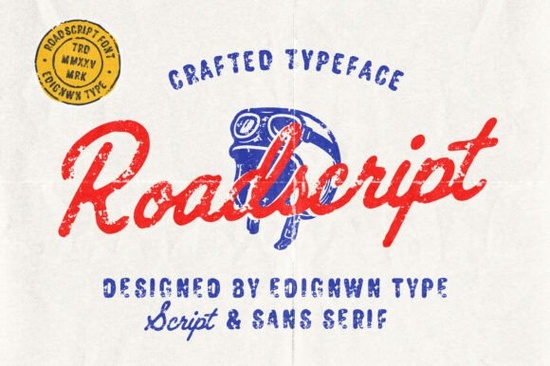
If you’re designing a logo for a classic car restoration shop, a vintage racing team, or a mechanic‑themed apparel line, you need lettering that feels authentic right out of the box. Roadscript Font gives you exactly that a retro automotive duo with Roadscript, a hand‑drawn connected script, and Roadscript Caps, a bold all‑caps display. Both typefaces are built to work together, so you can quickly put together badges, patches, posters, and brand systems that carry the warm, worn‑in grit of a 1950s garage.
What’s inside the Roadscript font family?
The product comes as a duo: Roadscript is the connected script. Its strokes are organic, with natural variations that mimic brush or marker lettering. There are no stiff, uniform curves here each character feels hand‑painted. Roadscript Caps is the companion. It’s a sturdy, all‑uppercase display face with subtle irregularities that keep it from looking cold. The caps are heavier, so they hold their own as a badge title or a secondary line under the script. Together, they give you the flexibility to build a full retro brand identity without hunting for a separate sans serif.
How do you pair Roadscript Script with Roadscript Caps in a logo?
Start by setting the main brand name in Roadscript. Because it’s a connected script, it reads like a signature ideal for a workshop name or a custom car model. Underneath, stagger a supporting tagline or year in Roadscript Caps. The caps have a uniform baseline and a blocky presence that anchors the script. Try adjusting the tracking in the caps a little so they breathe. Many designers also add a thin stroke or a simple container shape like an oval or a gear ring around the combo to create a classic badge. The contrast between the flowing script and the tough, squared‑off caps is what makes the pairing feel so natural.
Is Roadscript suitable for print‑on‑demand sellers?
Yes, especially for t‑shirts, hoodies, enamel pins, and tote bags. The script’s rough‑edged texture and the caps’ bold weight stand up well on fabric. Because the fonts already carry a distressed, vintage look, you don’t have to add much more just place your design on a mockup and the garment already looks like something pulled from an old toolbox drawer. Sellers who stick to one‑color or two‑color prints will appreciate how well both styles hold their shape without delicate hairlines.
How does Roadscript compare to other retro display fonts?
Roadscript leans heavily into hand‑crafted warmth. If your project asks for something more rigid and densely packed, a thick stacked display typeface might be a better fit. For a soft, handwritten script without the automotive edge, something like Sunday Soul can work nicely. When a sports‑collegiate look is the goal, varsity‑inspired fonts offer a clean, university‑style block letter, though Roadscript Caps still delivers a similar punch with more garage character. For those who want an ancient or mythological flair, Greek‑inspired serif fonts travel in a totally different direction. And if you’re after a grungy, cut‑out aesthetic, ransom pixel fonts could add a rough collage element that contrasts the smooth flow of the script.
You can see how the broader genre of vintage automotive type comes together in this Roadscript designer spotlight it walks through the kind of real‑world sign painting that inspired these letterforms.